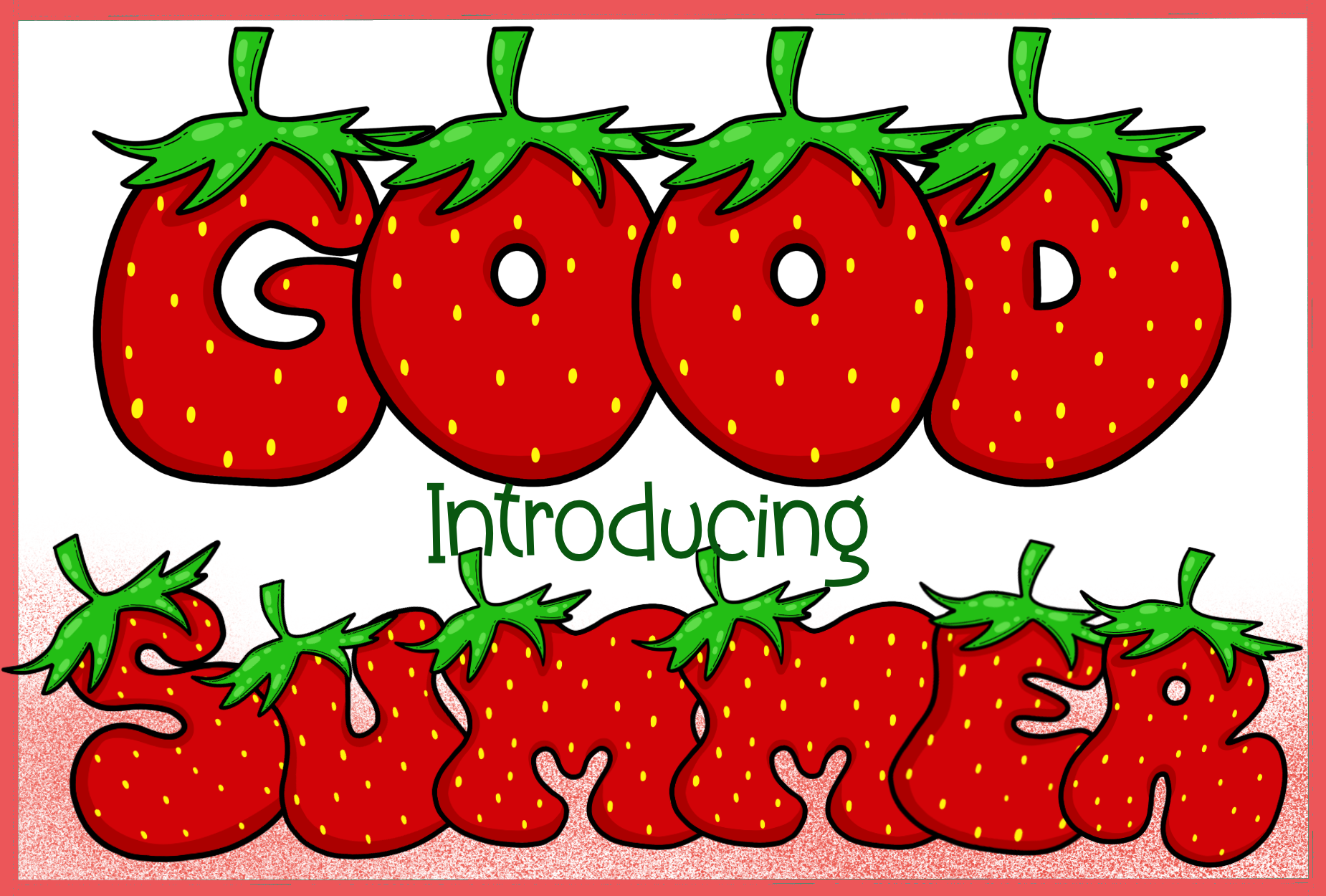
Good Summer Font
Super cute handwriting font, simple style, suitable for teaching. decorate the presentation Use for education, advertising, illustration, multi-purpose use. welcome everyone thanks.